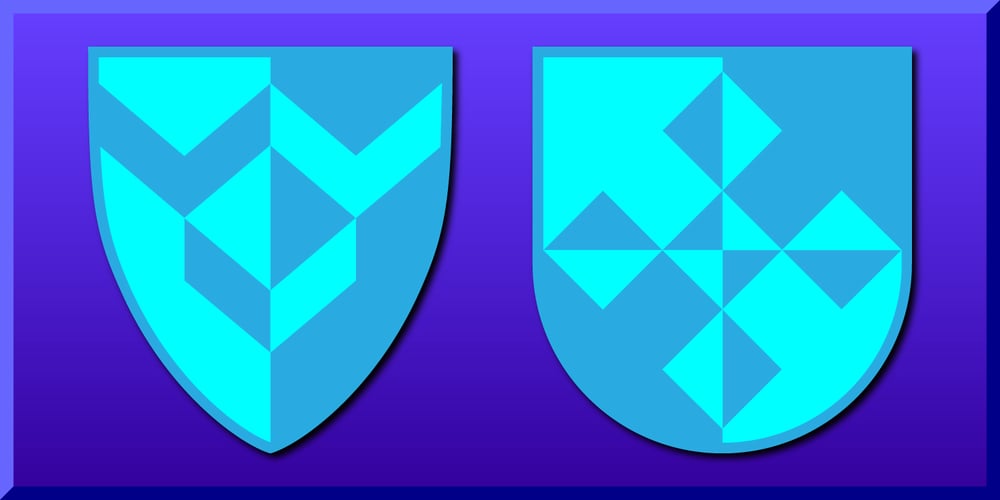
Shield Ornaments
Shield Ornaments font
Shield Ornaments Font Family was designed by Gerald Gallo and published by Gerald Gallo. Shield Ornaments contains 1 styles and family package options. The shield, a form in heraldry, has infinite design subdivision possibilities. Shield Ornaments contains a selection of 98 geometric designs on rounded and pointed shields.